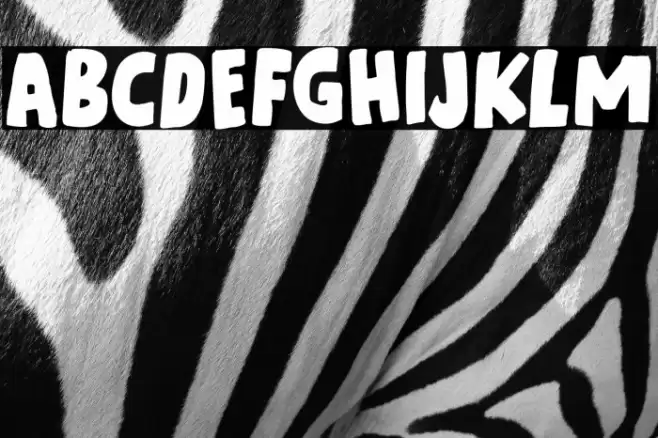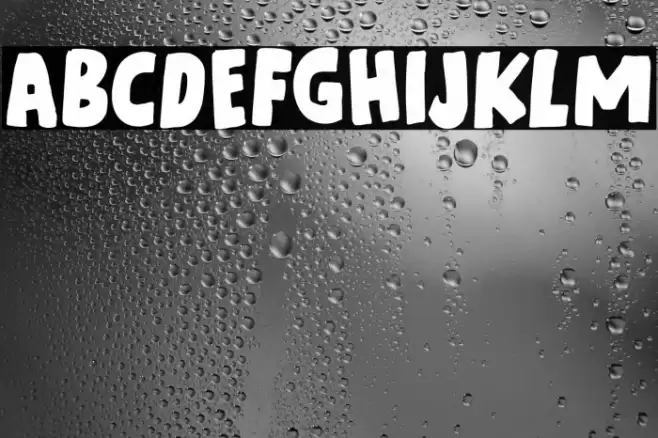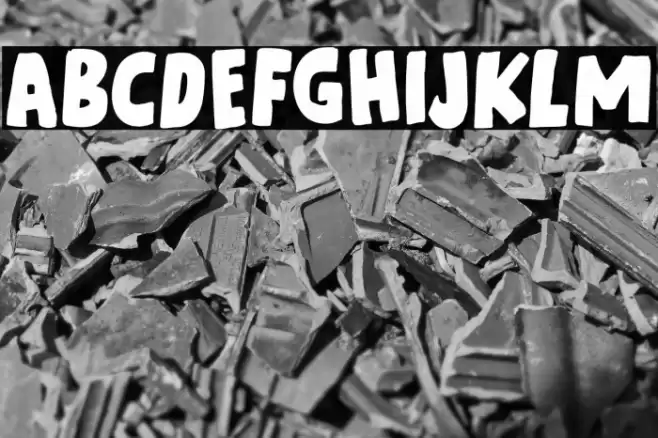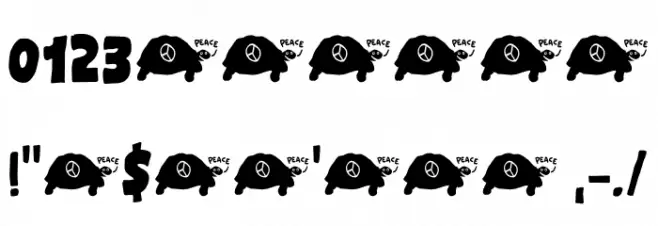
Cosmic Turtle DEMO Regular Font
Cosmic Turtle DEMO Regular Description
This playful and bold font features a unique, hand-drawn style with a whimsical touch. The characters are thick and rounded, giving them a friendly and approachable appearance. The uppercase and lowercase letters maintain a consistent style, with slightly irregular shapes that add to the font's charm. The numbers and special characters follow the same playful design, making them stand out. The font includes a distinctive turtle graphic with a peace symbol, adding a decorative element that enhances its quirky nature. Overall, this font exudes a fun and creative vibe, perfect for projects that require a touch of personality and humor.
A bold, playful font with a hand-drawn, whimsical style and unique turtle graphics from Cartoon fonts.
- Proposed Projects: Ideal for children's books, playful branding, creative posters, and fun social media graphics.
- Overall Style: Playful, Whimsical, Creative
- Use Case: Logos, Posters, Children's Books, Social Media Graphics